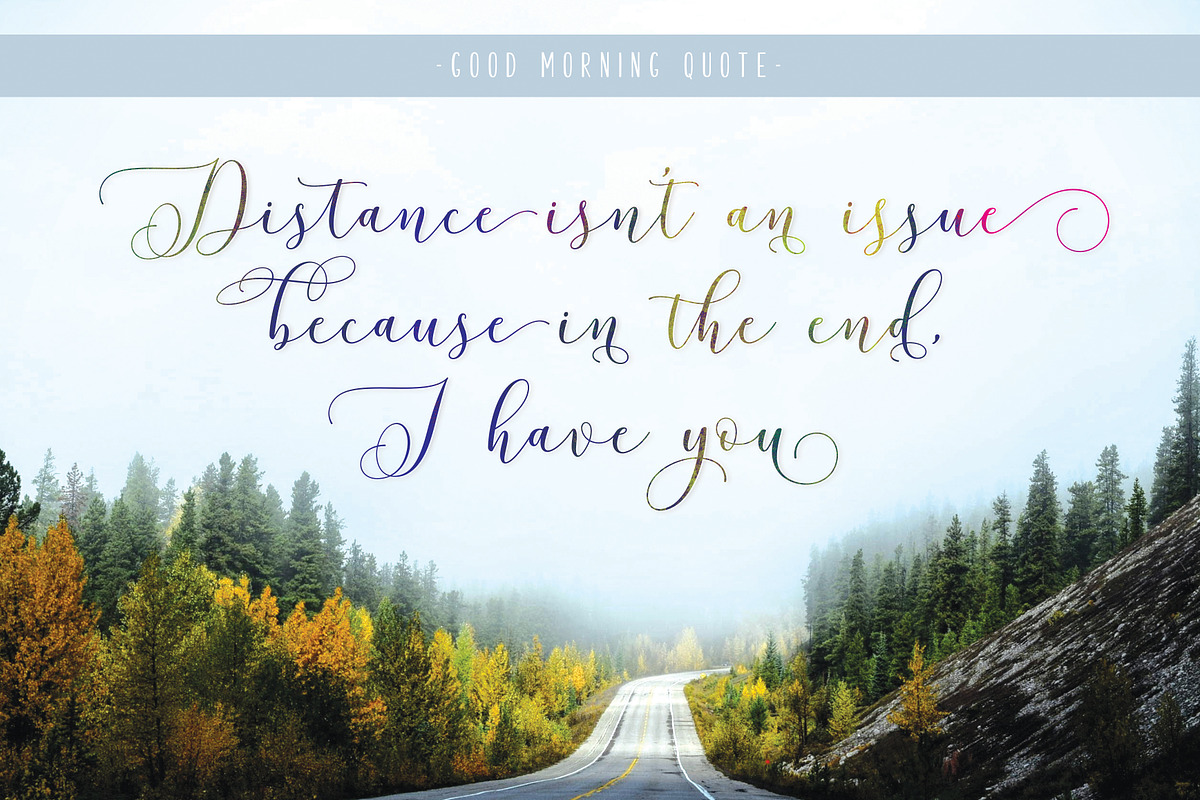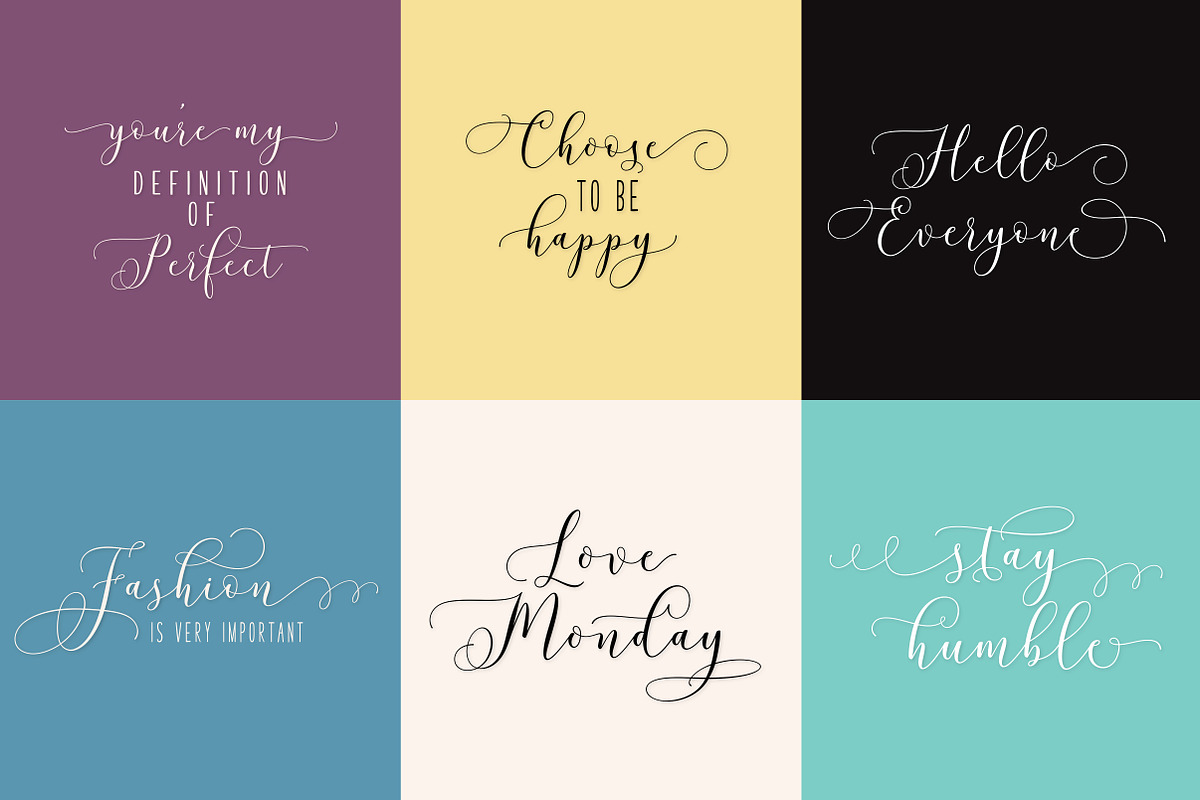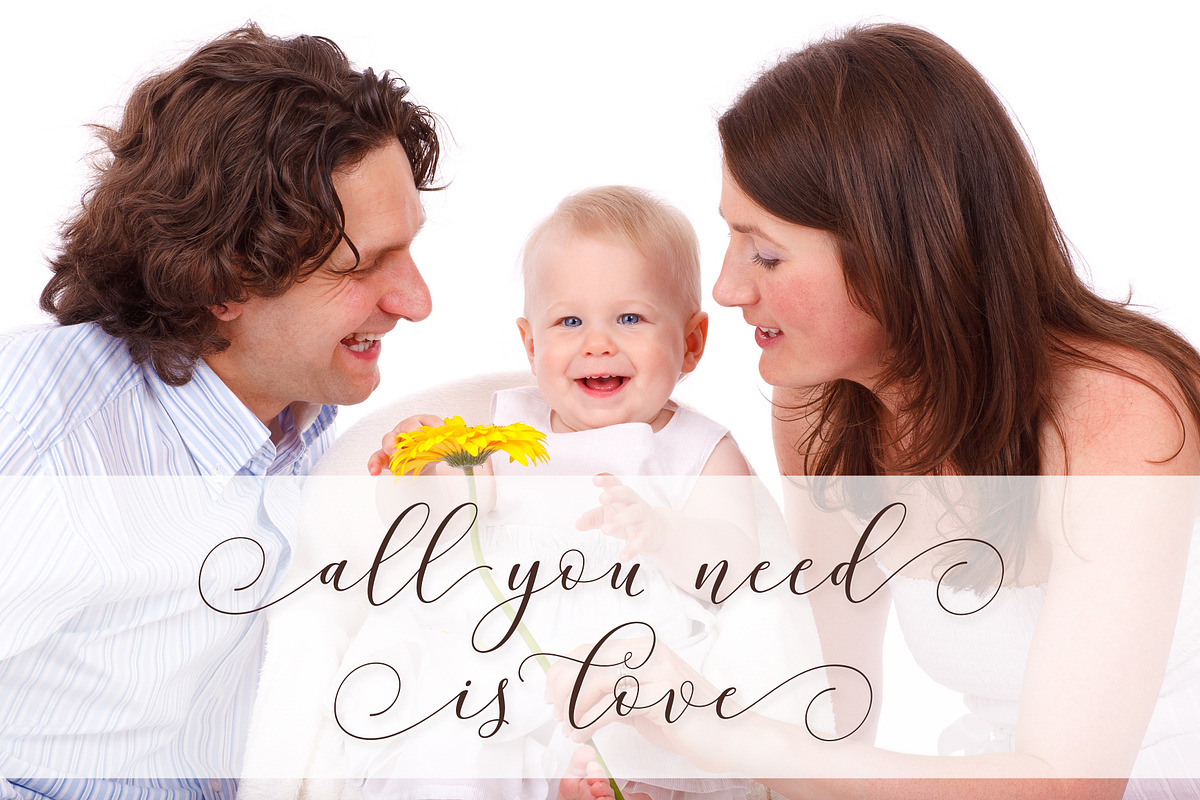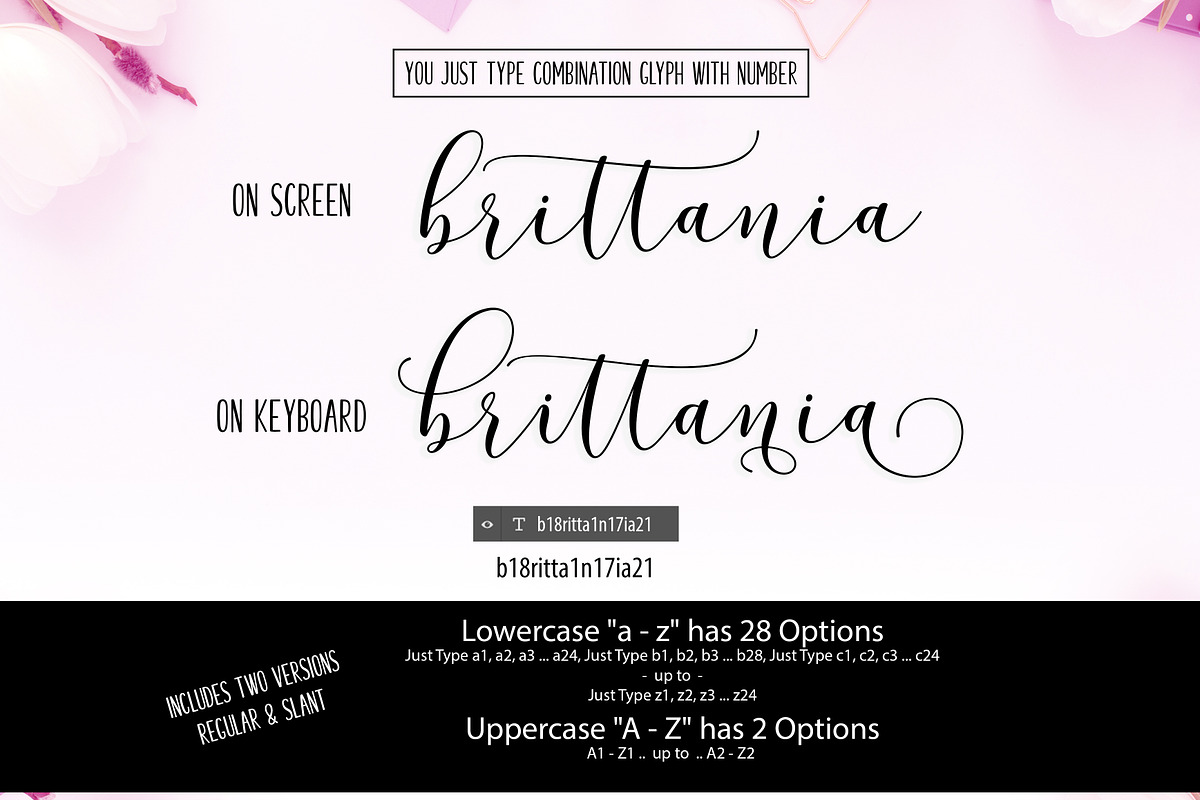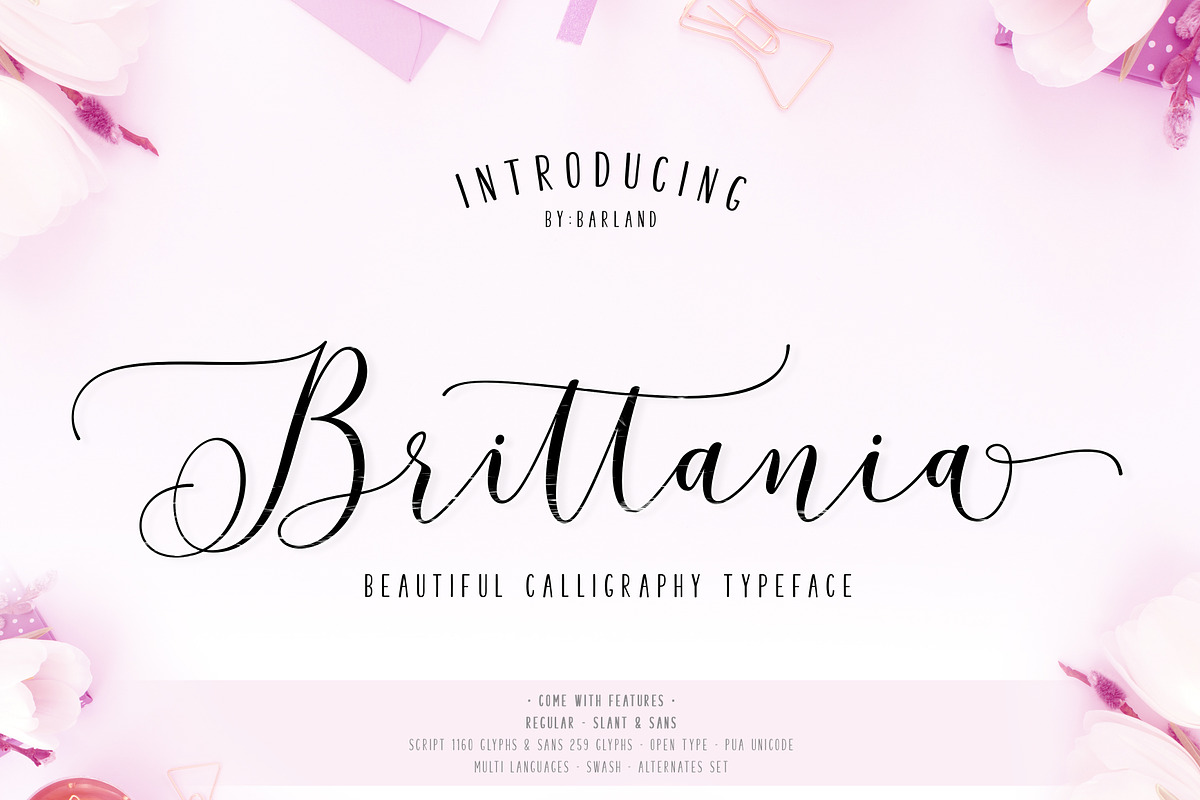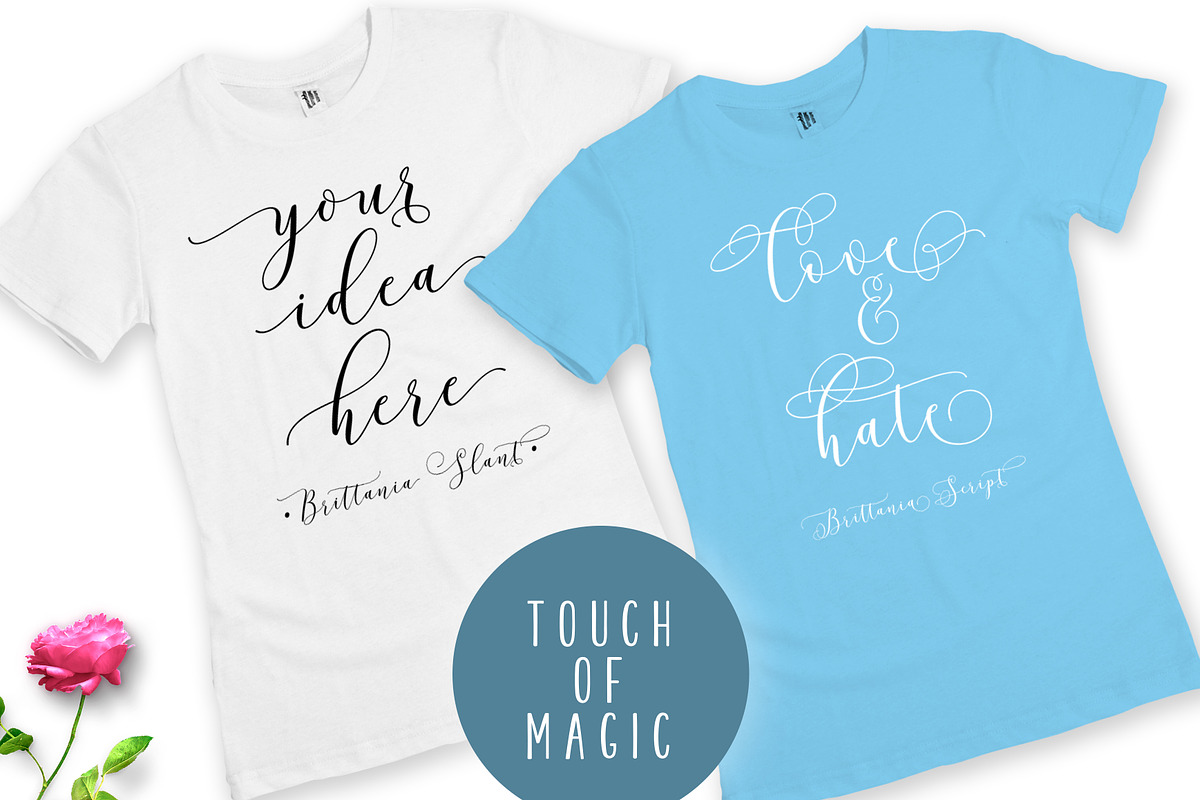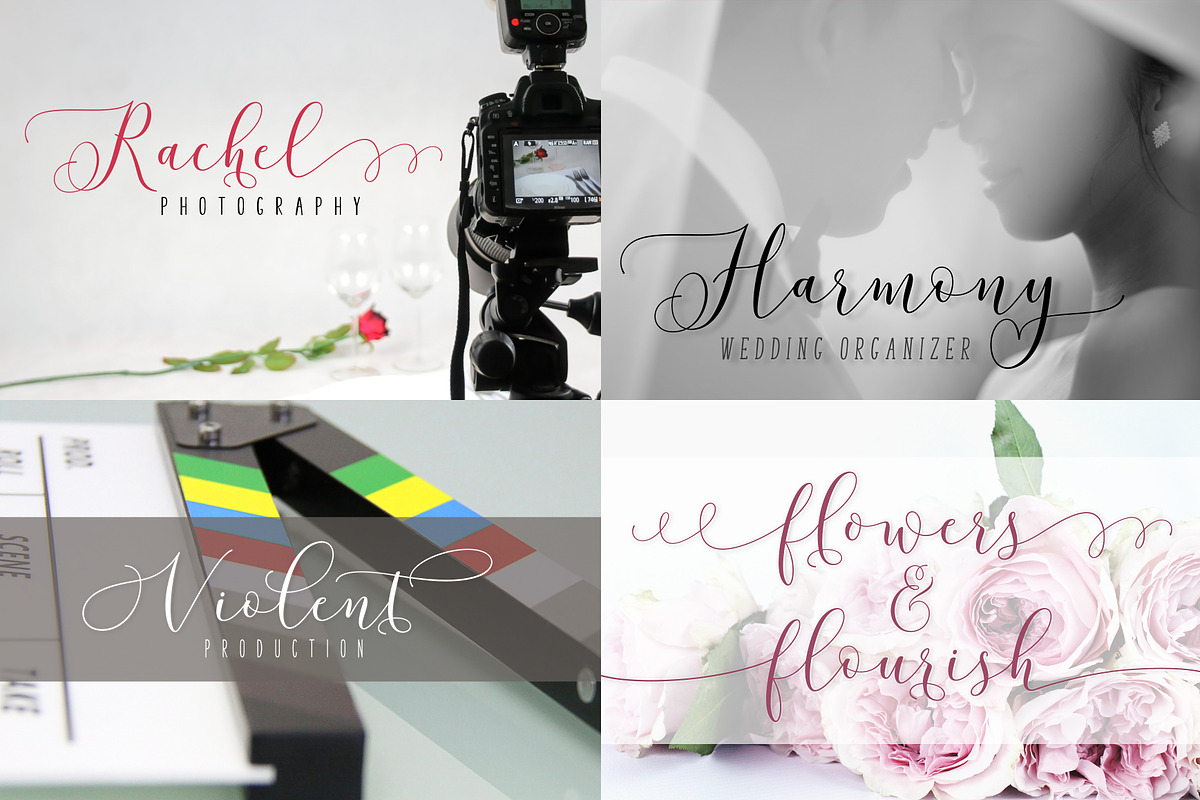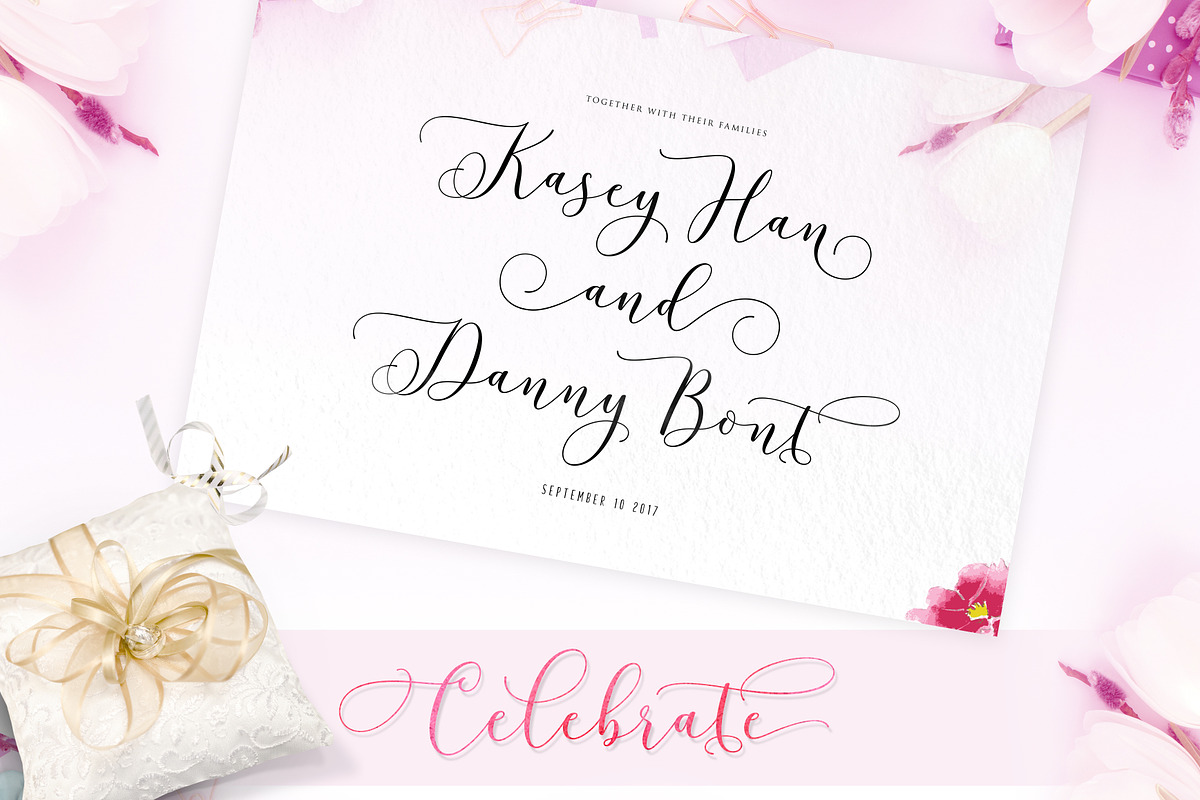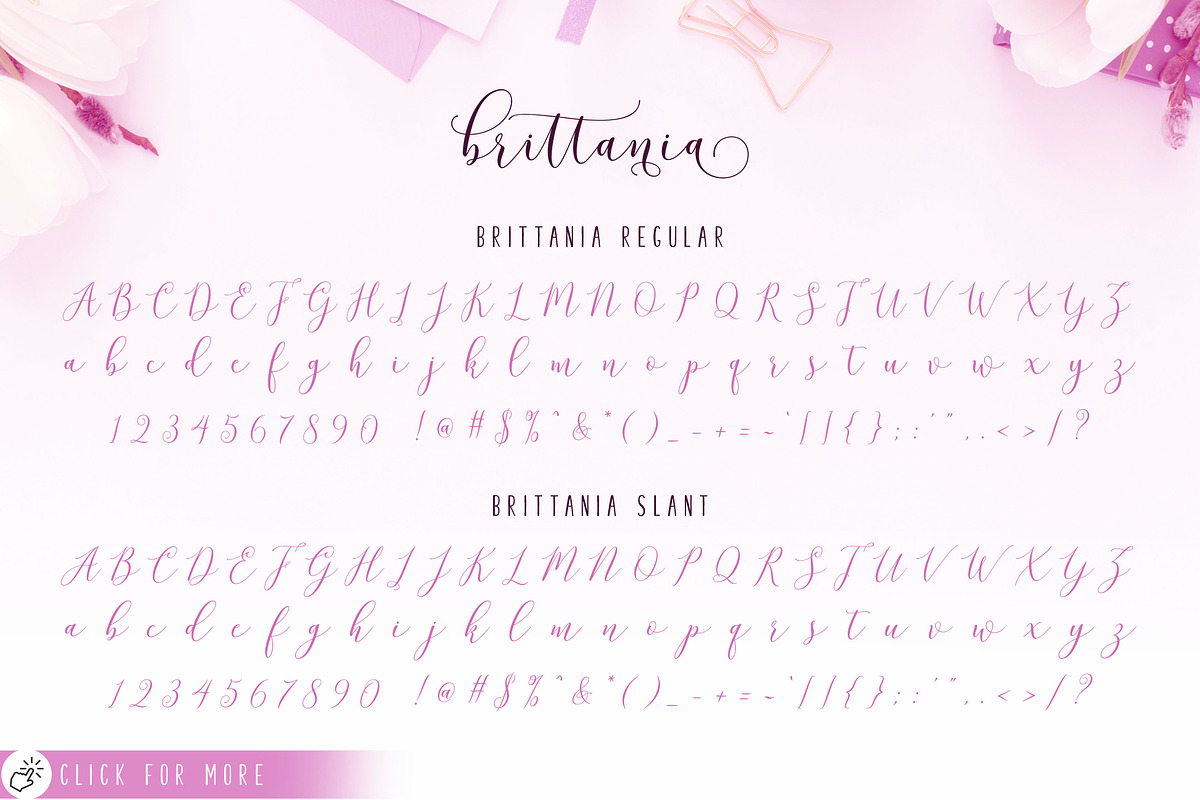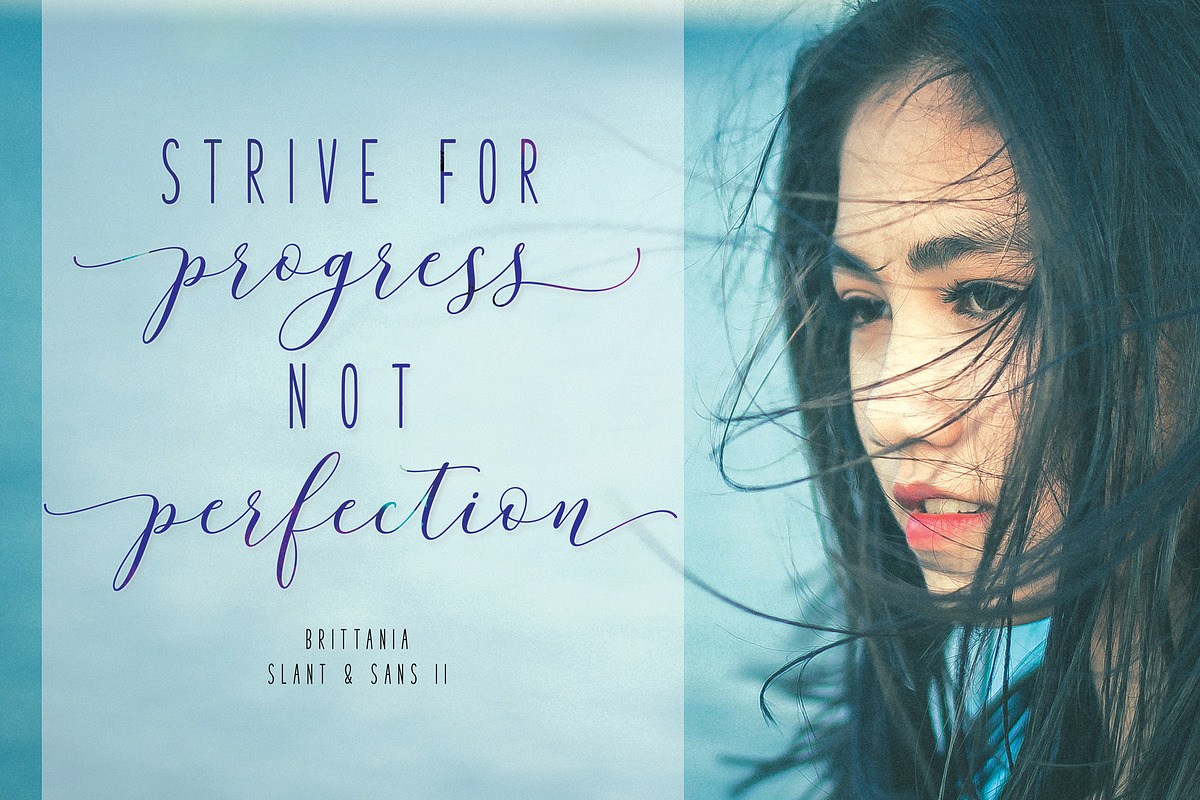
New! Brittania Script
Introduce my new font Brittania Script is modern script font, every single letters have been carefully crafted to make your text looks beautiful. With modern script style this font will perfect for many different project ex: quotes, blog header, poster, wedding, branding, logo, fashion, apparel, letter, invitation, stationery, etc.
To access alternate glyphs and swashes Brittania Script just type the number after any letter: A1, A2 & a1, a2, a3 ... z27 etc